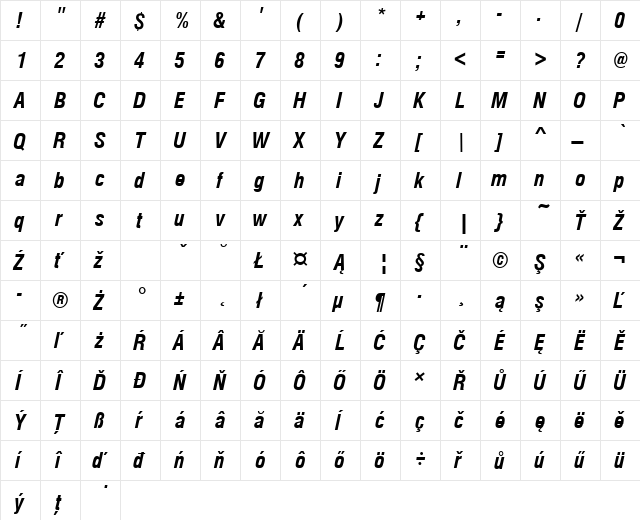
NimbusSanDEECon Bold Italic Font Preview
Design Context for NimbusSanDEECon Typeface
NimbusSanDEECon offers clean, dependable letterforms without strong stylistic allegiance, making it a practical choice for designers who need flexibility. The slanted form adds forward momentum and visual energy. The heavy weight commands attention and anchors typographic hierarchies.
Pro Tip: Try NimbusSanDEECon for annotation and caption copy alongside an upright companion — the contrast in angle creates a dynamic but ordered typographic system.